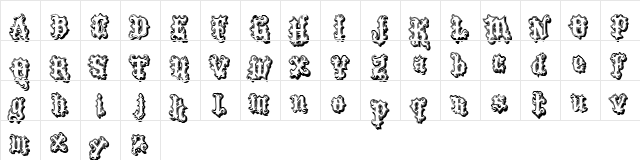
VTKS Tattoo Shadow Regular
Design Context for VTKS Tattoo Shadow Typeface
VTKS Tattoo Shadow brings ornamental detail and strong personality to headlines and identities, where visual impact matters more than quiet functionality.
Font Pairing: Pair with a clean neutral sans-serif for body copy to let VTKS Tattoo Shadow's character lead without overwhelming the composition.
Pro Tip: Treat VTKS Tattoo Shadow as the centrepiece of your typographic hierarchy. One strong heading set in a decorative face can carry an entire layout.